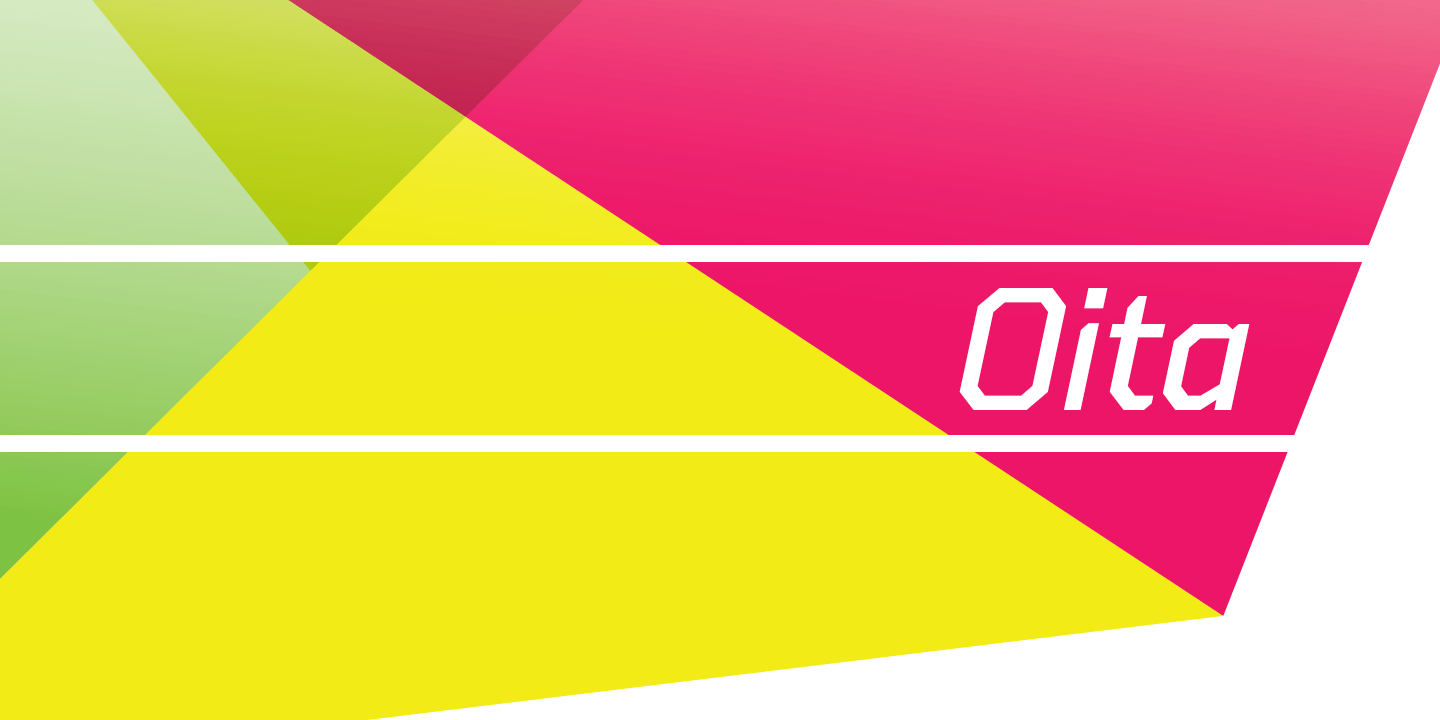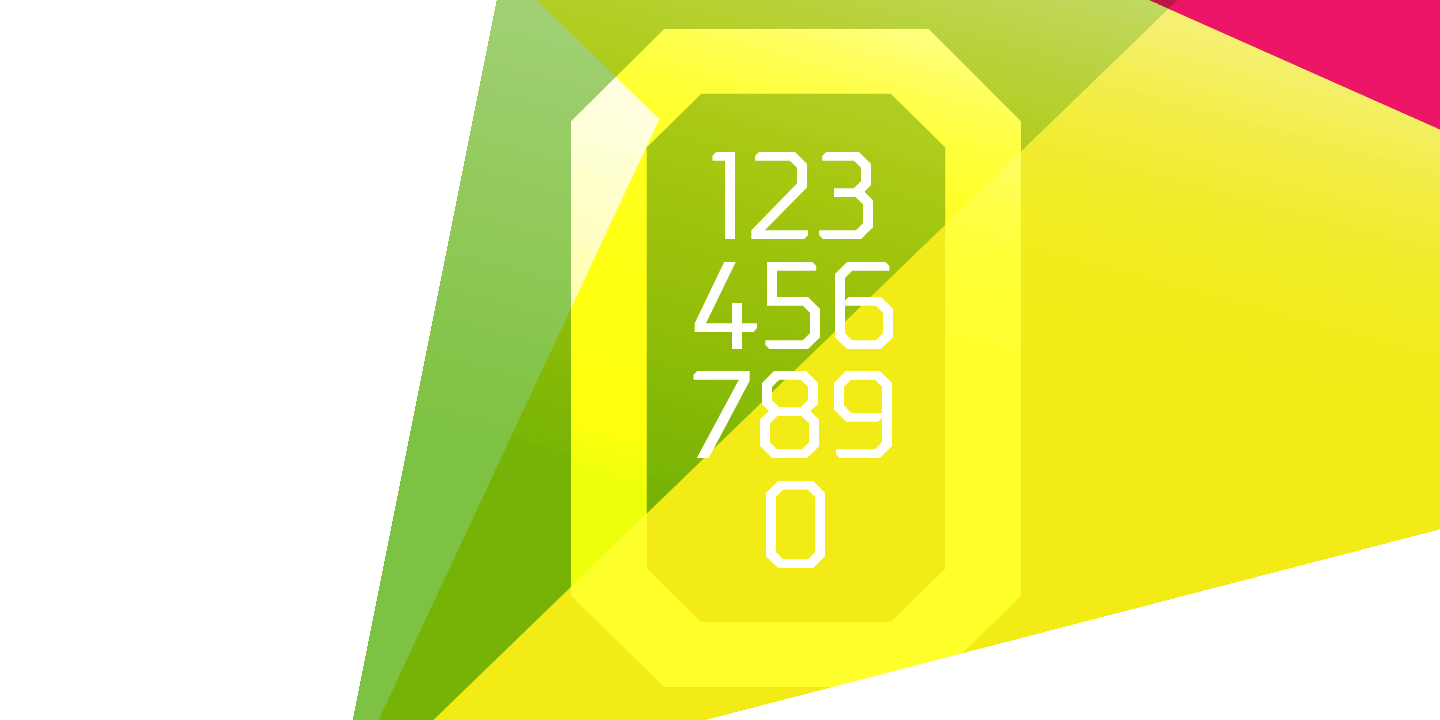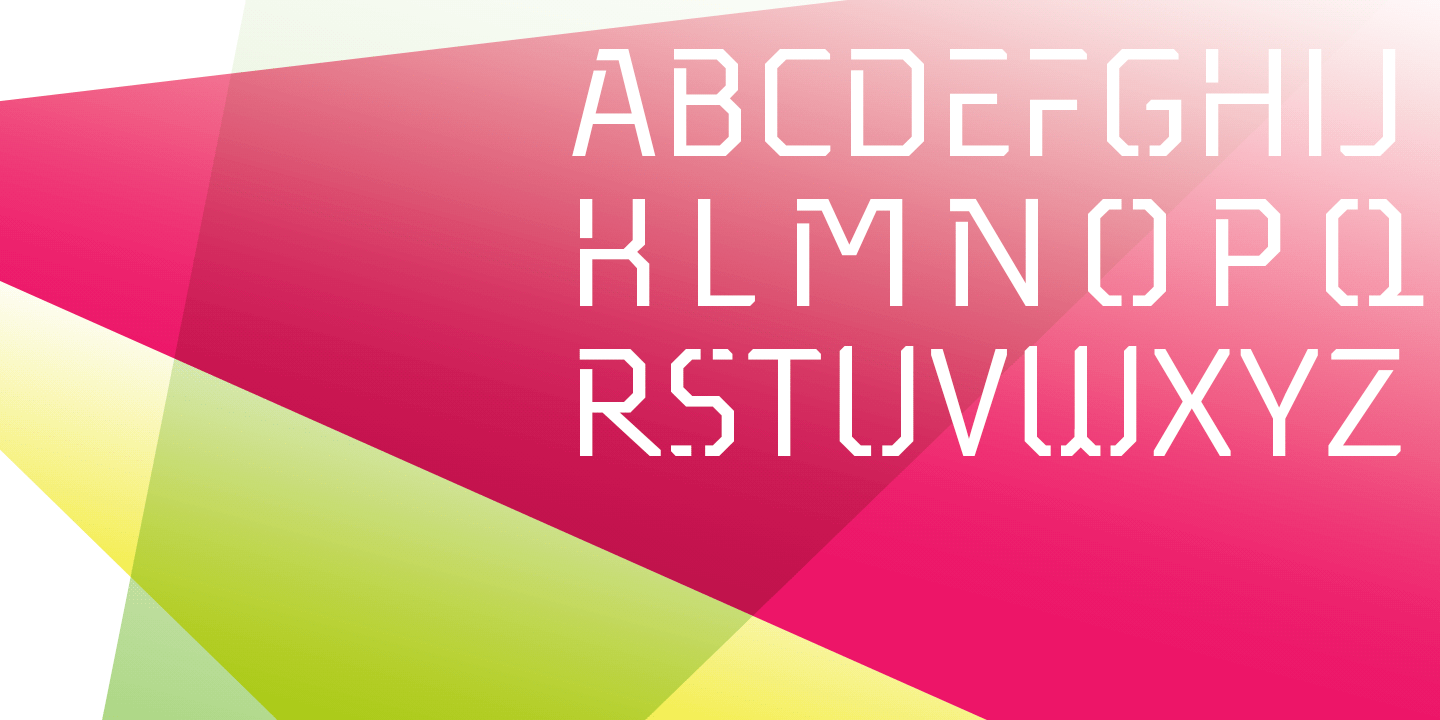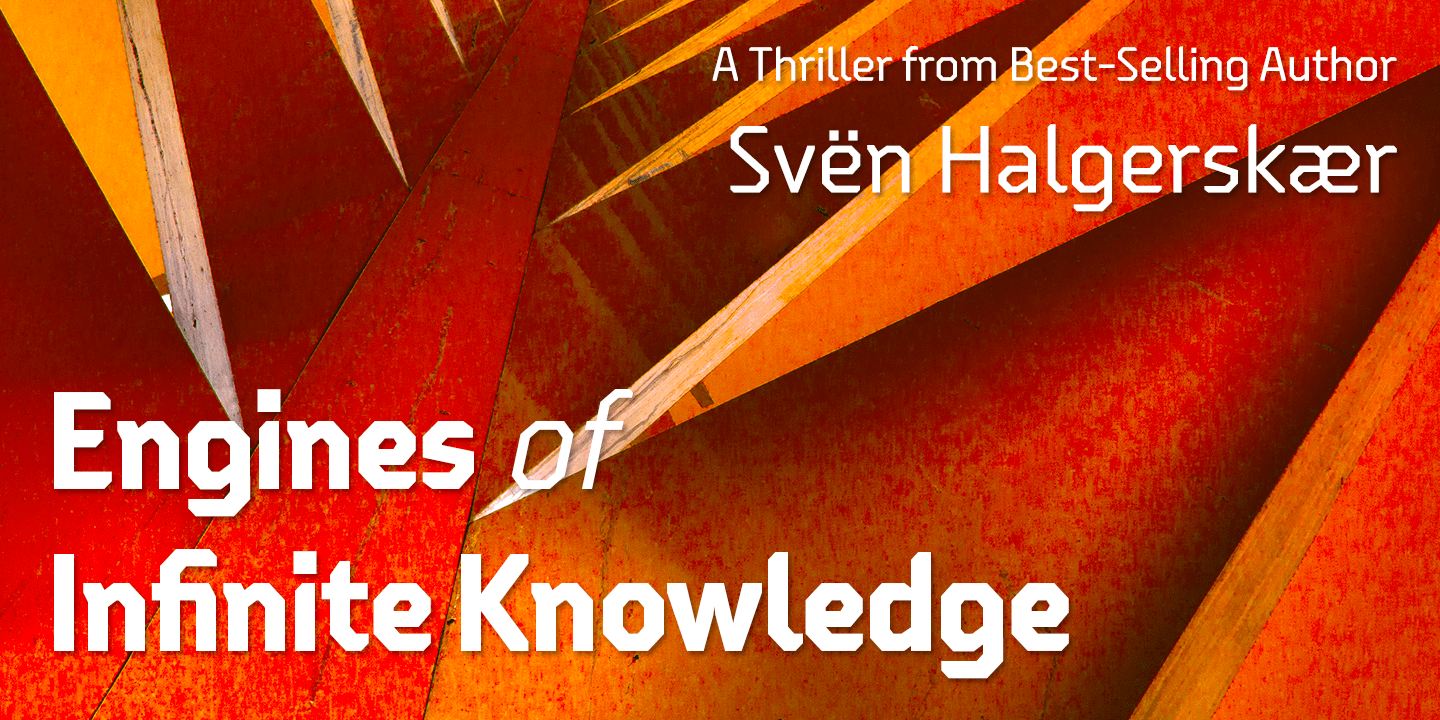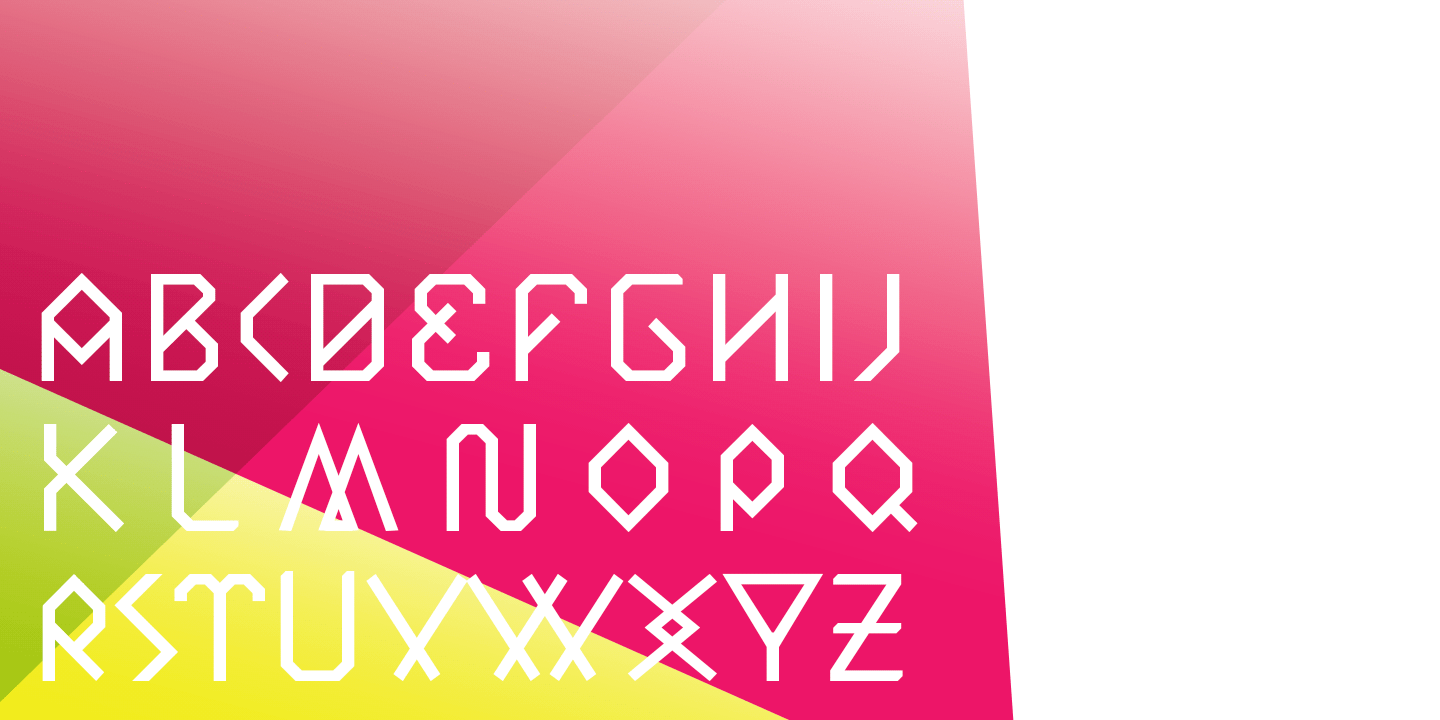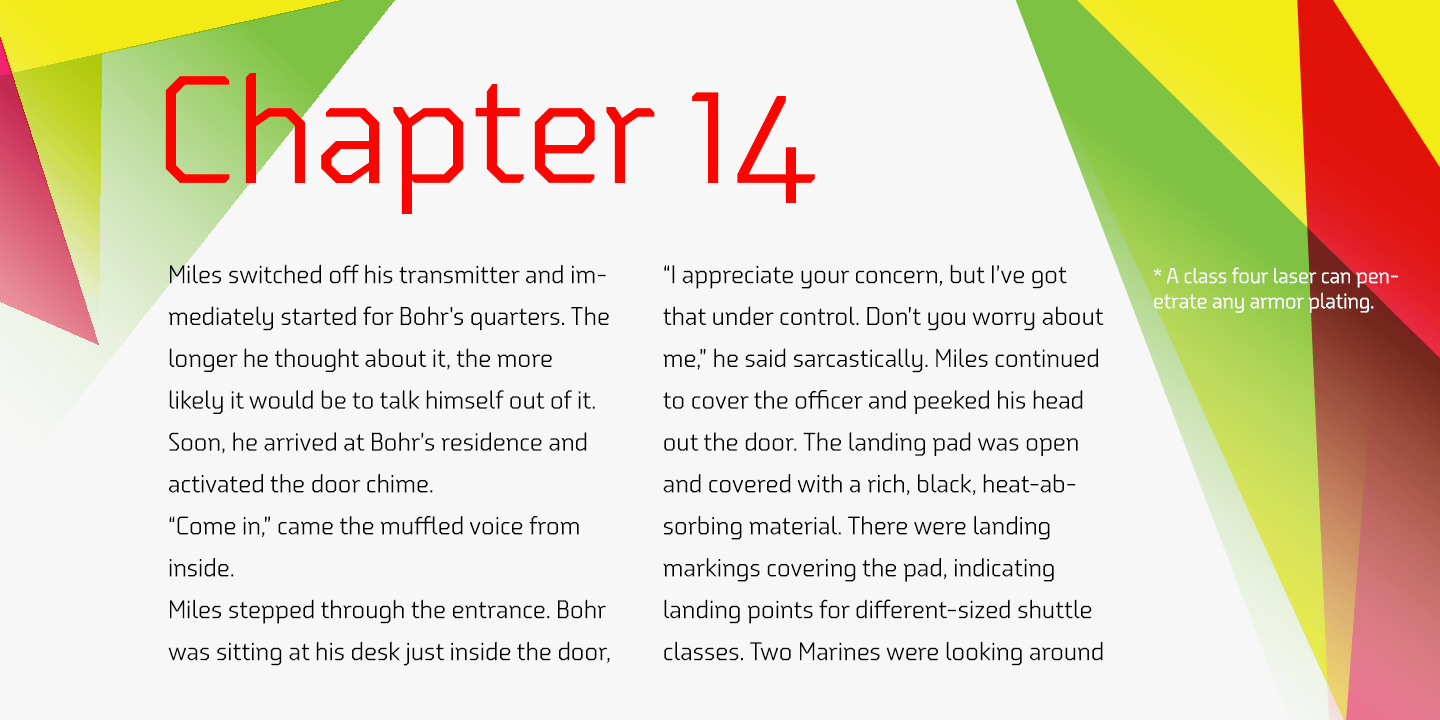
Oita
Buy NowOita might be a carefully crafted typeface family, created by a meat-bag human.
Or, it might have been made by a supremely clever sentient robot.
Found in the dark recesses of a top secret spy agency's quantum computer, this font came with this somewhat unusual description, which is presented without comment.
"To conquer, we cannot simply overcome. Success is found in supremacy--in the dominance of Oita.
While looking for the right tool for this success, our research has led us to the finely executed forms found of military domination throughout history. In our labs, we've used our specialized machines to harness these forms' power and refined their impact through elements of contemporary and computer design. The structure proves to be robotic and squared on its edges. However, the chutzpah of this technical face still allows it to pass as if created by human hands.
Our resulting payload, Oita, is modern and sturdy. While based on a practical, octagonal structure, make no mistake; this new instrument will drive forward the energy you want to push through your projects. Oita has 42 cuts certain to encompass your designs on world domination. Each font contains the glyphs to support over 52 languages. The font also includes tabular and lining figures, numerous ligatures, and selected advanced Opentype options, including stencil and experimental options to bring out the dynamic characteristics that have already been crafted into Oita.
Early tests have found that the new instrument is easily scalable to smaller dimensions without reducing its impact. The font remains highly readable across a variety of applications. We speculate from our findings that it will be successful for sporting and technical applications.
So for you who venture to use Oita, use it boldly. Don't just overcome. Dominate. Go and conquer mightily with Oita. We'll be watching."
We may never know whether Oita hails from mind or mechanism. What we do know is that, should you choose to take on Oita, you'll be acquiring a dynamic poster and packaging face, a minigun-toting bad robot of a font that exudes pace and power.